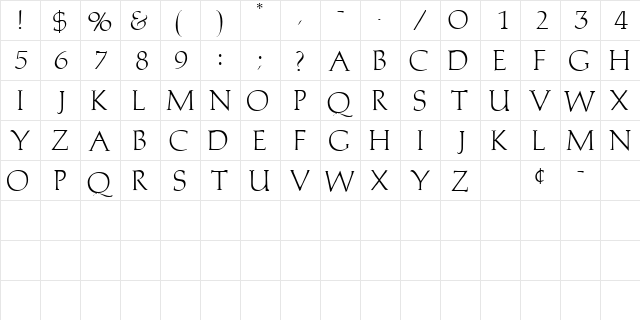
BouyanceCapsSSK Regular
Design Context for BouyanceCapsSSK Typeface
BouyanceCapsSSK offers clean, dependable letterforms without strong stylistic allegiance, making it a practical choice for designers who need flexibility.
Pro Tip: Use BouyanceCapsSSK in both headline and body roles to test its range before committing to a single application.